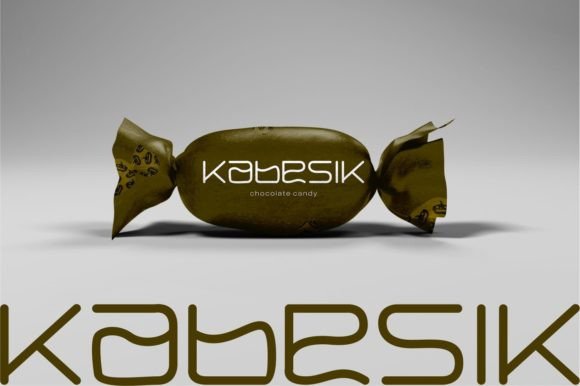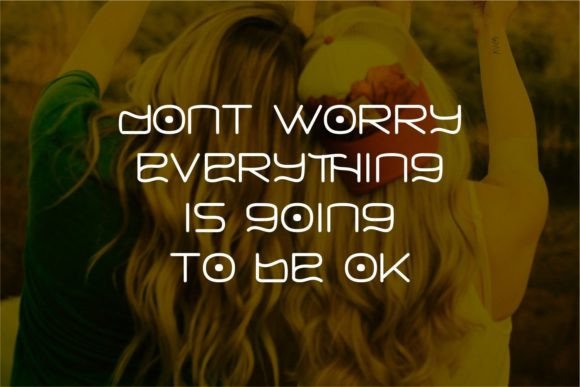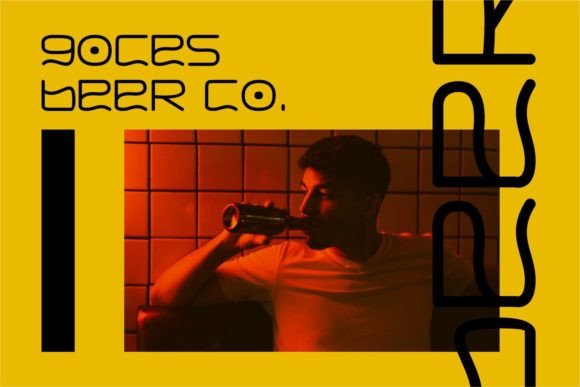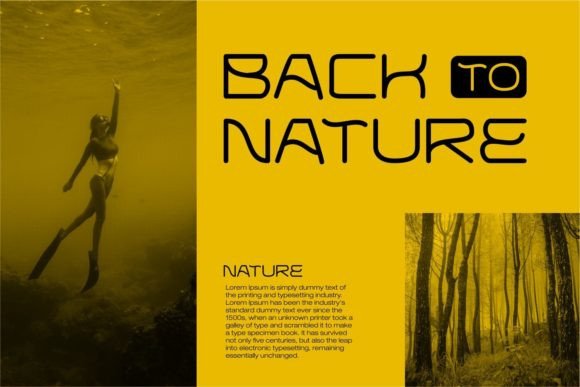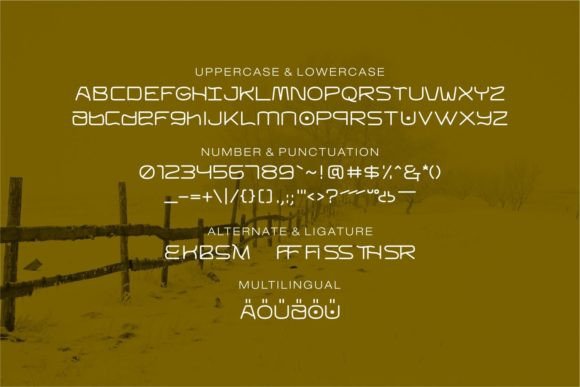
Unleash Your Creativity with the Quirky Basmi Font
Have you ever stared at a blank page, wondering where to start your next design project? The blank canvas can be daunting, but it’s also an opportunity to let your creativity shine. As designers, we’re always on the lookout for the perfect font to bring our ideas to life.
Enter the Basmi Font, a fun and quirky display font that’s sure to add a touch of personality to your designs. With its uniquely-shaped, thin characters, Basmi Font is perfect for creating trendy and stylish designs that stand out from the crowd. Whether you’re working on a branding project, social media graphics, or even a blog post, Basmi Font is a valuable addition to your design toolkit.
Basmi Font Key Features
- Font Family: Basmi Font is a unique, modern sans-serif font family designed for readability and versatility.
- Character Count: Basmi Font contains over 800 characters, including Latin, Cyrillic, and Arabic scripts, making it an ideal choice for multilingual designs.
- Size: Basmi Font is available in 6 font weights (Thin, Light, Regular, Medium, Bold, Black) and 3 font styles (Regular, Italic, Oblique) for added flexibility.
- Resolution: Optimized for high-resolution displays, Basmi Font is perfect for use in digital media, including websites, mobile apps, and print materials.
- Unique Characteristics: Basmi Font features a distinctive, geometric shape with subtle rounded edges, giving it a clean and modern aesthetic.
Basmi Font Review
Overall, I have mixed feelings about the Basmi font. Let’s dive into what works well and what doesn’t.
- Unique Character: The Basmi font has a distinctive and quirky personality, which can be a great asset for designers looking to add some flair to their projects.
- Legibility: Despite its unconventional appearance, the font is surprisingly legible, making it a good choice for body text.
- Customization Options: The Basmi font offers a range of customization options, including font sizes, colors, and spacing, which can help designers fine-tune the look and feel of their project.
- Limited Font Size Range: The Basmi font is best suited for smaller font sizes, as larger font sizes can make it look cluttered and overwhelming.
- Not Suitable for Formal Text: Due to its playful and quirky nature, the Basmi font is not ideal for formal or professional text, such as academic papers or business reports.
- May Not Be Accessible: The font’s unique design may not be accessible to users with visual impairments or those who prefer more traditional font styles.
In conclusion, the Basmi font is a fun and creative option for designers who want to add some personality to their projects. However, it may not be the best choice for more formal or professional projects, or for users who prefer more traditional font styles.
Getting the Most Out of Basmi Font
For best results, use Basmi Font on high-contrast backgrounds and adjust the font size accordingly. Experiment with different font styles and combinations to achieve the desired look.
Basmi Font is ideal for creating eye-catching headings, titles, and logos. It’s also great for adding a unique touch to your branding materials, social media graphics, and marketing materials.